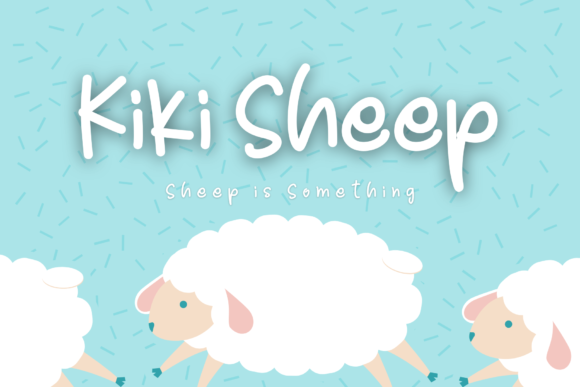
Unleash the enchantment of "Kiki Sheep Font," a whimsical display font guaranteed to transform your designs into a world of sweetness and magic. Created by the talented Nox Studio, this font boasts a modern yet playful style, sure to captivate and delight audiences of all ages. "Kiki Sheep Font" is the perfect choice for projects seeking a charming and lighthearted touch, with its quirky and friendly demeanor bringing an irresistible charm to any creation.
Immerse yourself in the boundless creativity that "Kiki Sheep Font" offers. Let your imagination run wild as you explore the font's versatile nature, ideal for a multitude of design endeavors. Whether you're crafting whimsical invitations, enchanting logos, or captivating social media posts, this font will effortlessly add a touch of magic to your work, leaving a lasting impression on all who encounter it.
Step into a realm where imagination thrives, where every letter dances with joy and enchantment. Embrace the allure of "Kiki Sheep Font" and unveil a world where creativity knows no bounds. Its modern style, infused with a whimsical twist, will elevate your designs to new heights, captivating audiences with its undeniable charm. Let your projects blossom with the magic of "Kiki Sheep Font" and embark on a design journey like never before.